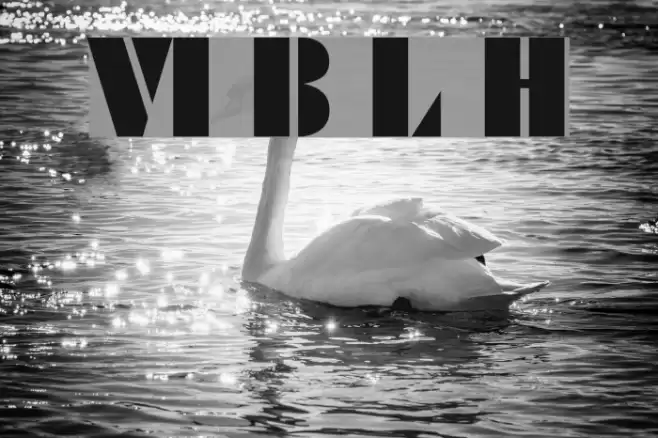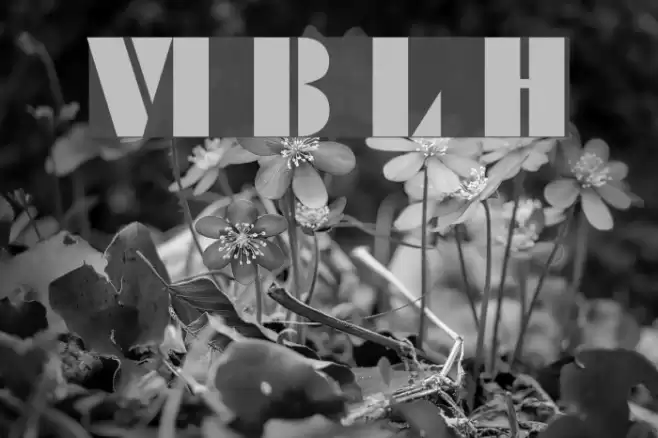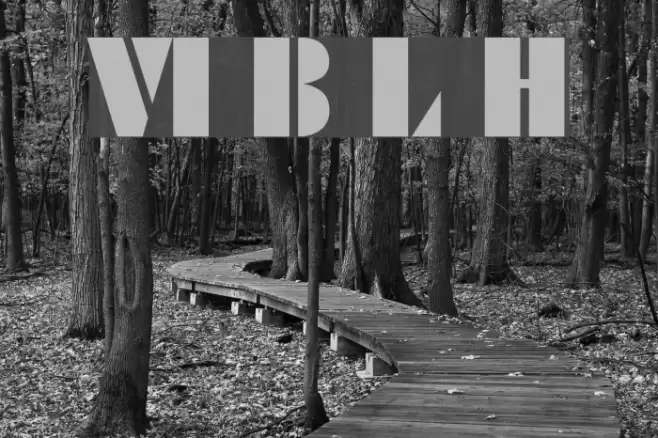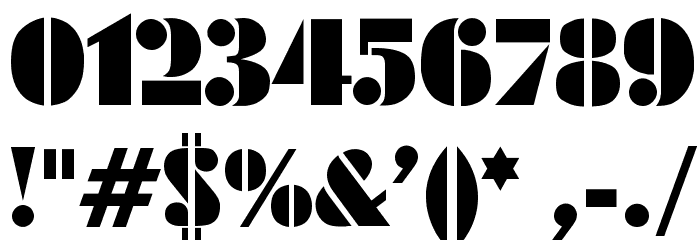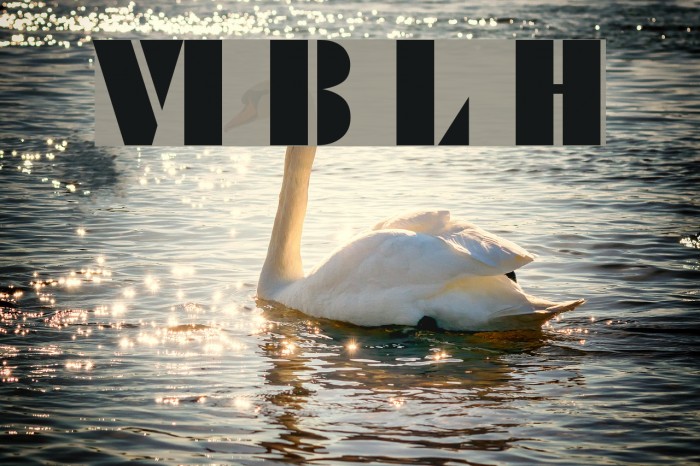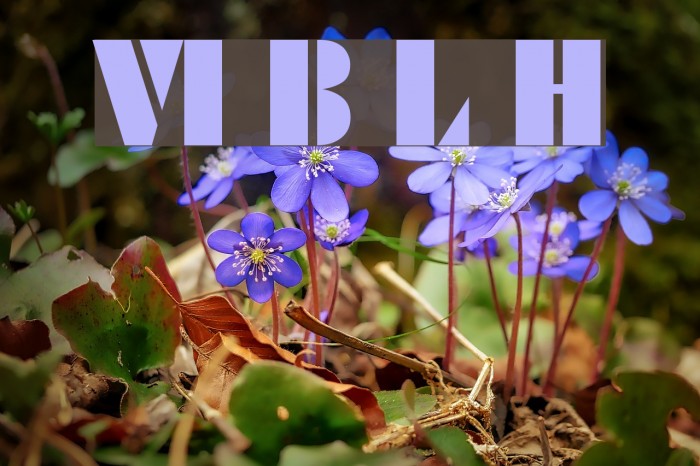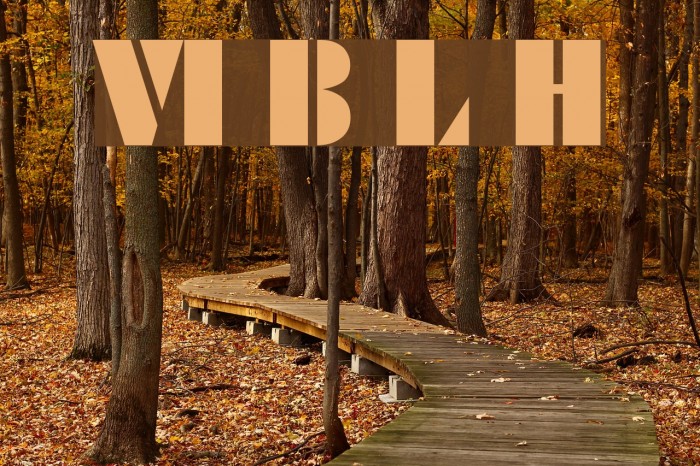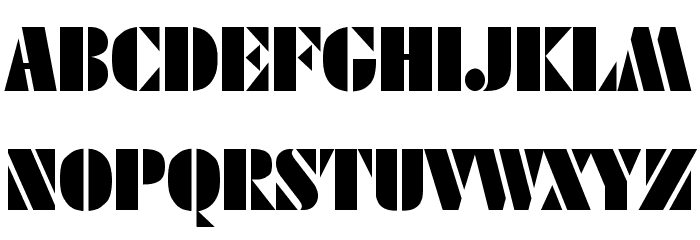
VI Bang Lang Hoa Font
VI Bang Lang Hoa Description
This font is a bold and striking display typeface characterized by its geometric and blocky letterforms. Each character is crafted with sharp angles and thick strokes, creating a strong visual impact. The uppercase and lowercase letters maintain a consistent style, emphasizing uniformity and balance. The numerals and special characters follow the same design principles, ensuring a cohesive look across all glyphs. This typeface is ideal for making a statement, with its high contrast and dramatic presence.
A bold, geometric display typeface with sharp angles and thick strokes from Uncategorized fonts.
- Proposed Projects: Ideal for posters, headlines, branding, and any project requiring a strong visual impact.